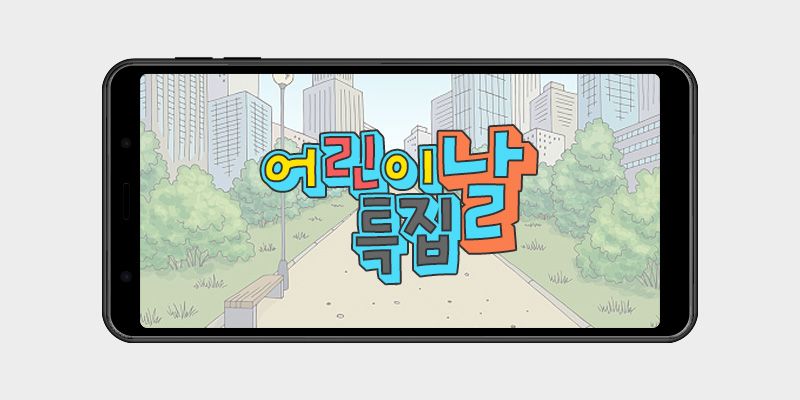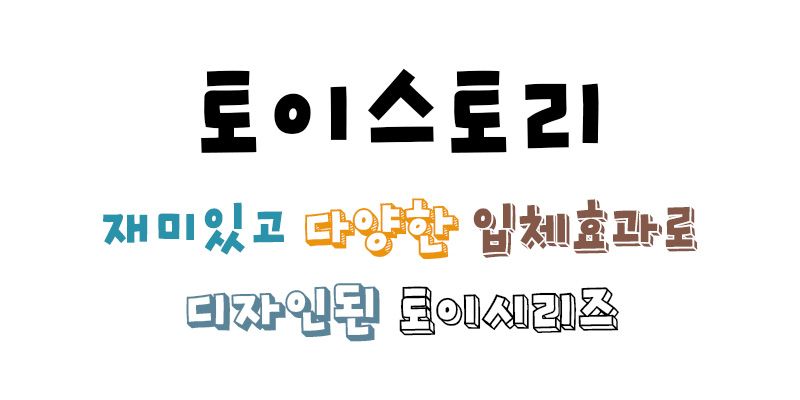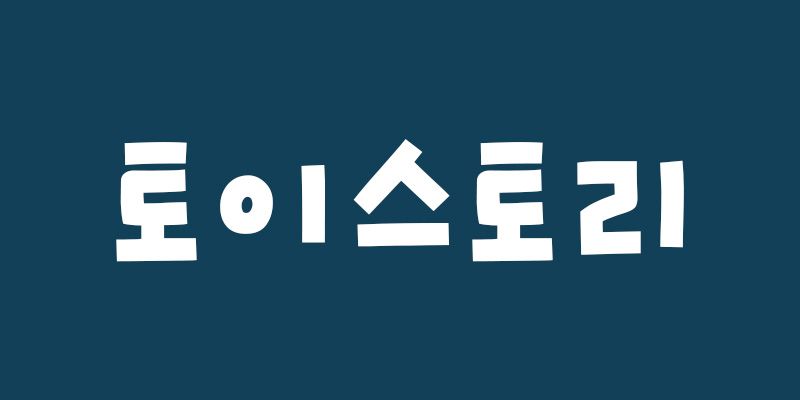
RixToystory is a layered font that enables fun and diverse expressions by combining various 3D effects.
The cute characters and free lines are reminiscent of the rambunctious and fun gingerman character.